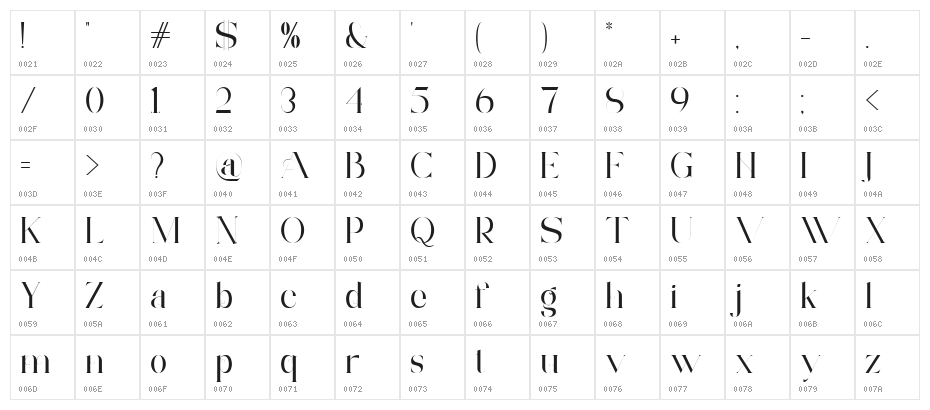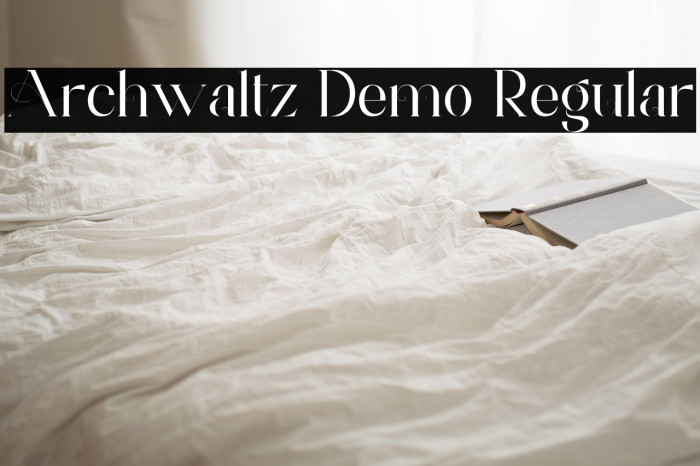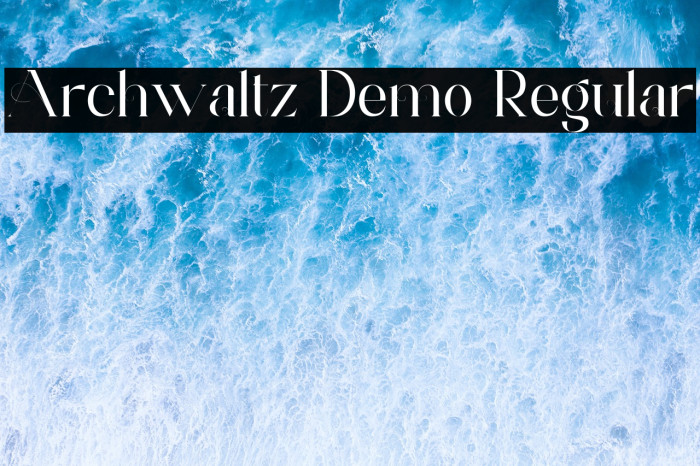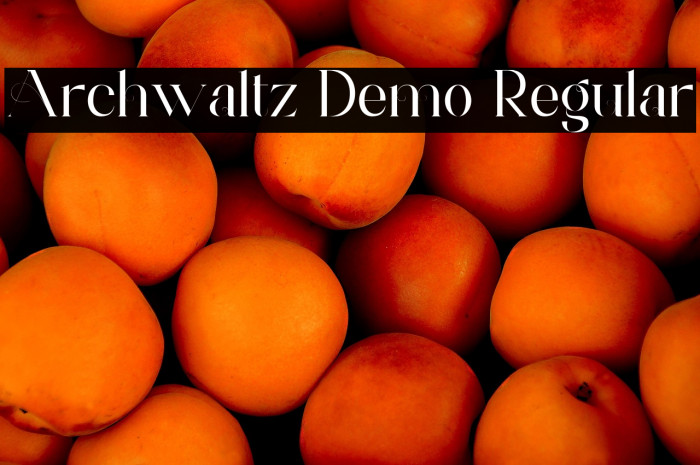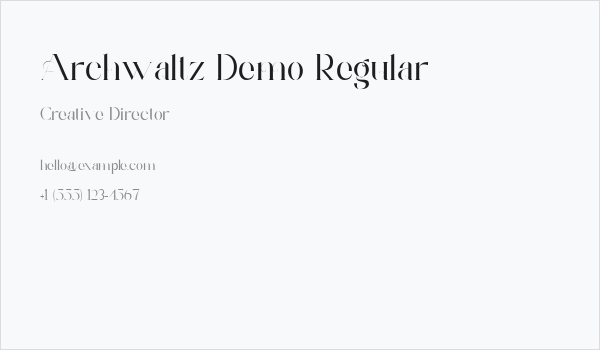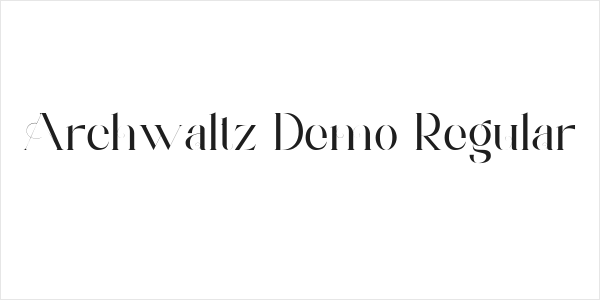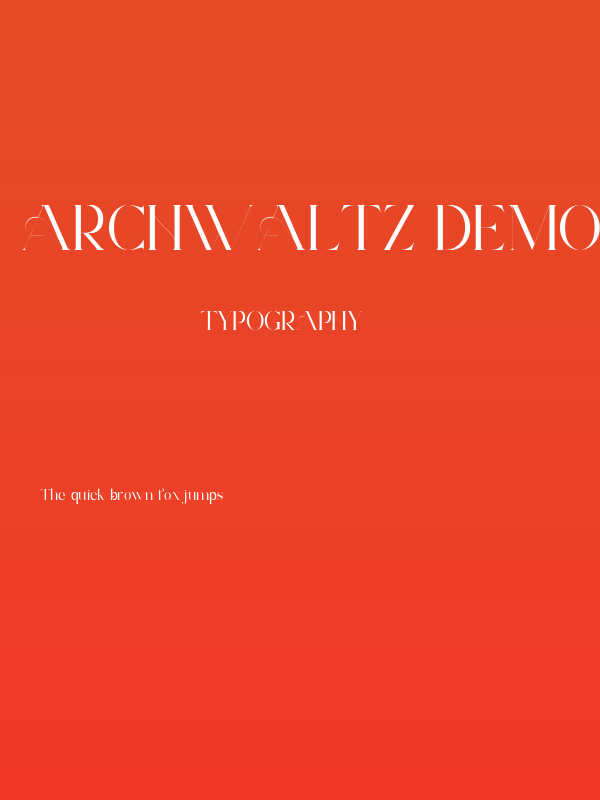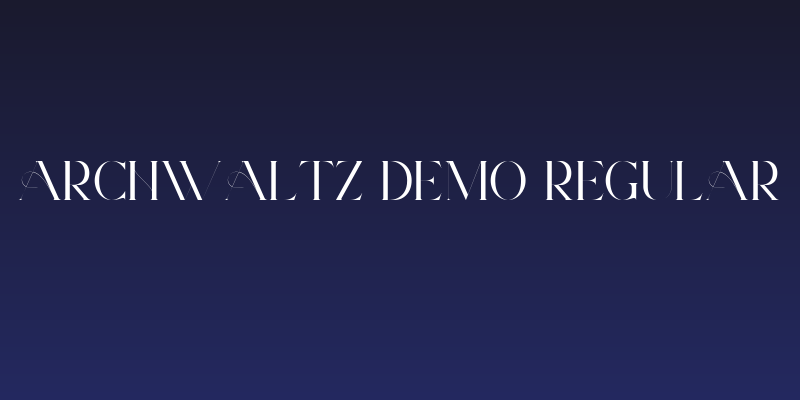
Archwaltz Demo Regular Font
Archwaltz Demo Regular Description
This font features a unique blend of modern and classic elements, characterized by its high contrast between thick and thin strokes. The uppercase letters exhibit a sophisticated elegance with sharp, angular serifs, while the lowercase letters maintain a smooth, flowing appearance. The numerals are distinct and stylish, complementing the overall aesthetic. Special characters are crafted with attention to detail, enhancing the font's versatility. This typeface is ideal for projects that require a touch of luxury and refinement.
Proposed ProjectsIdeal for luxury branding, editorial design, high-end packaging, and elegant invitations.